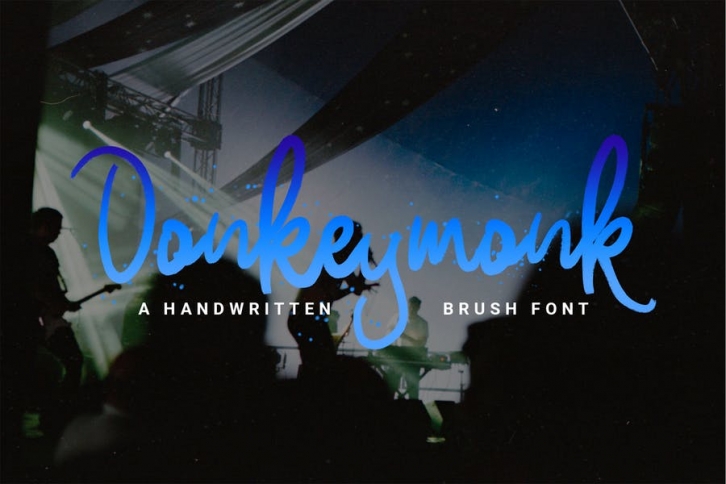
Donkeymonk is a hand brushed typeface, with authentic dry brush imperfections, and a very bouncy baseline It has a perfectly paired complimentary brush font. Ideal for logos, handwritten quotes, product packaging, header, poster, merchandise, social media & greeting cards.